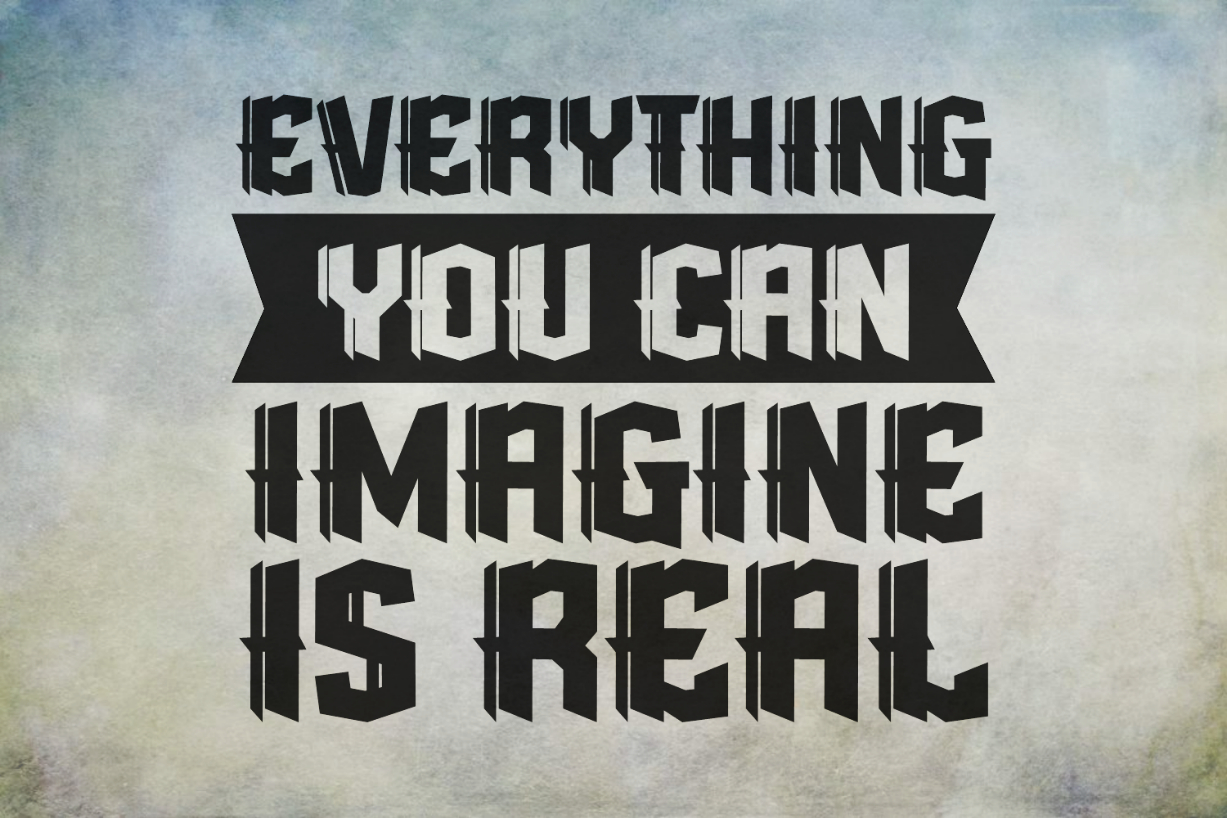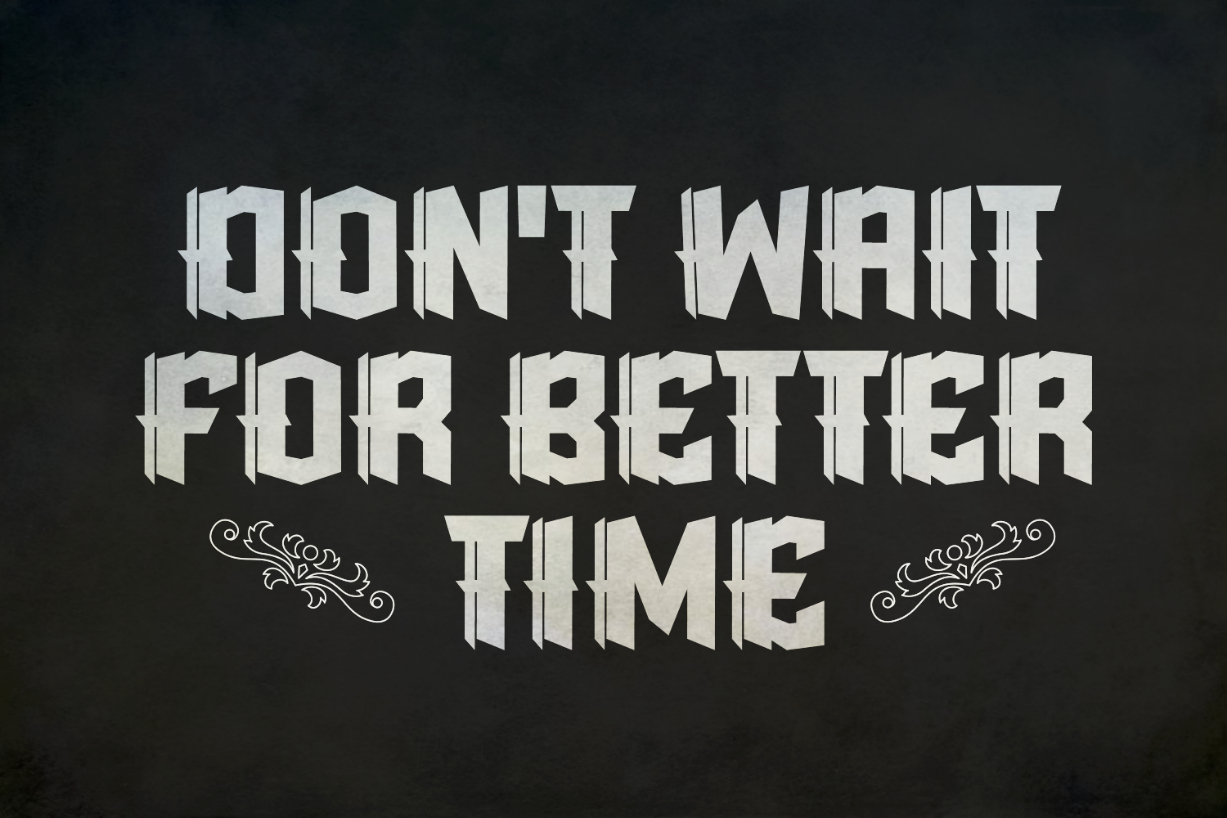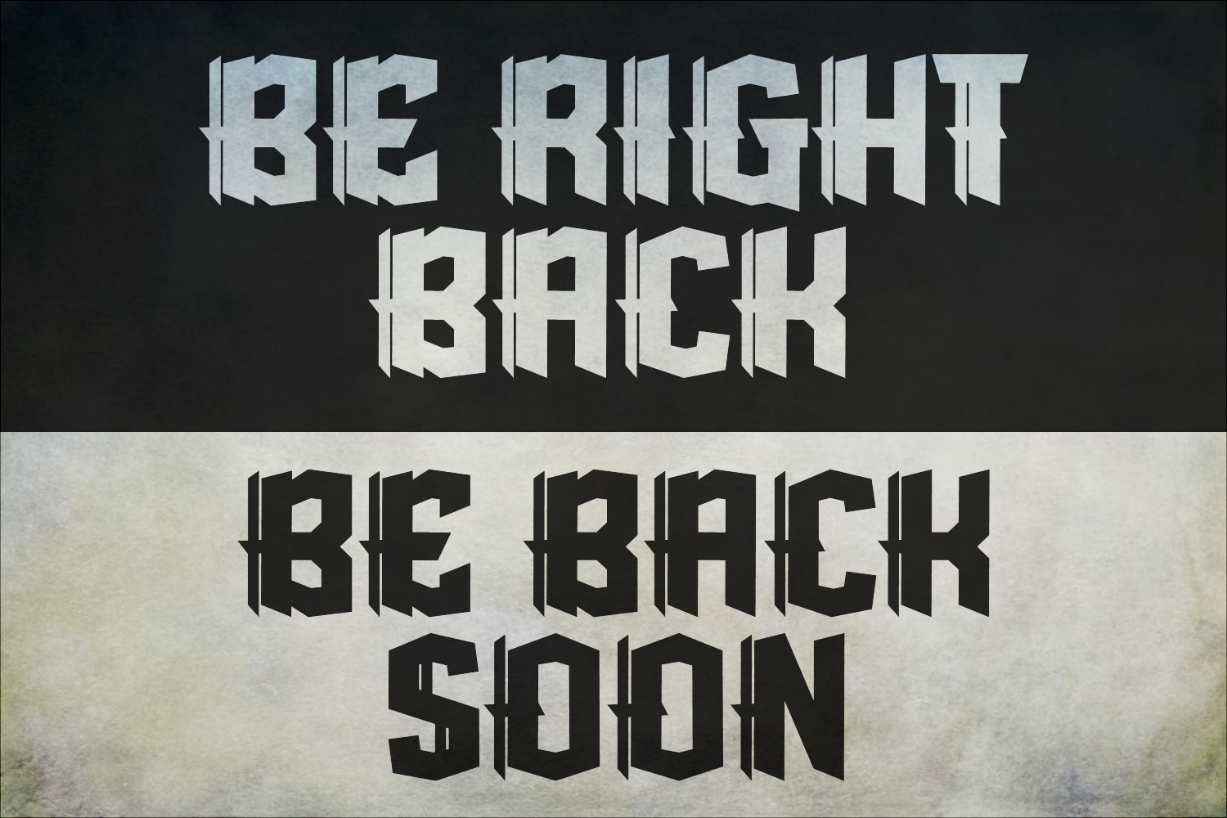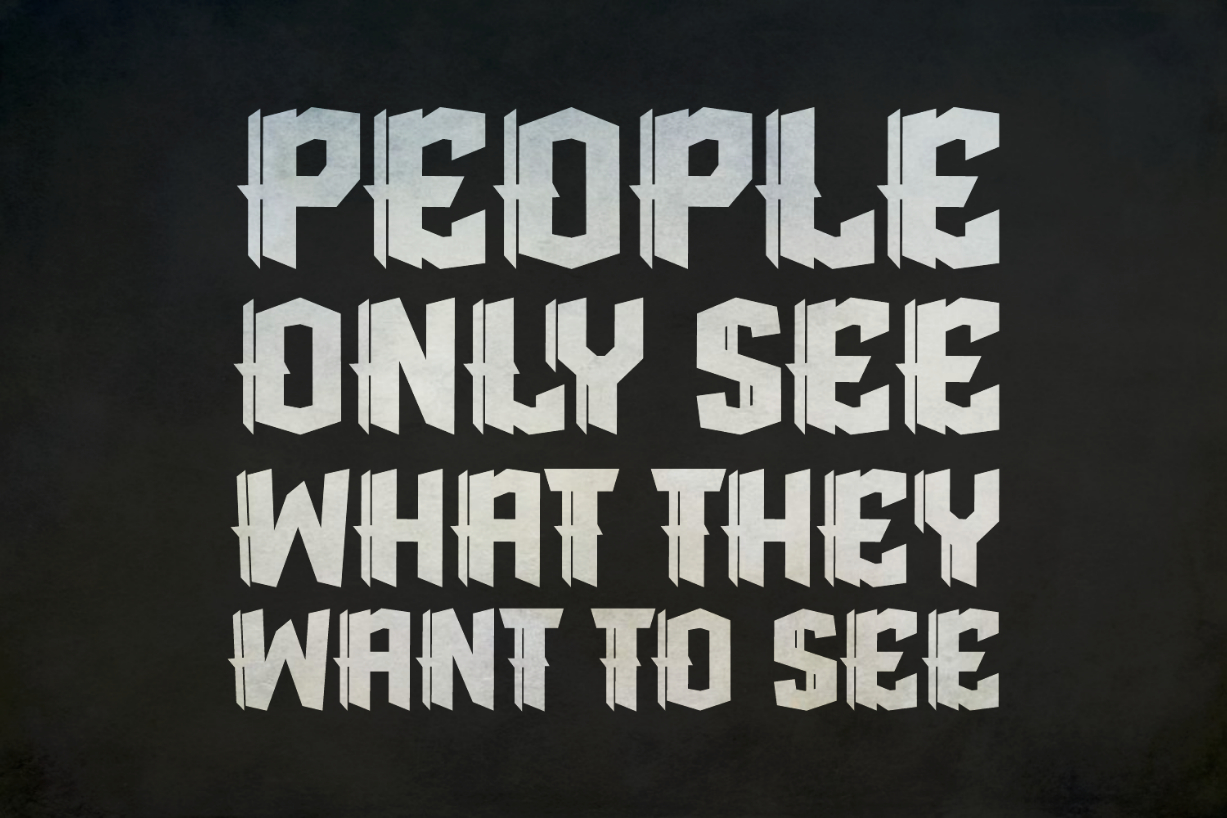
Sparta Jagoan Font
About Sparta Jagoan Font
Sparta Jagoan is a chunky and magnificent blackletter font. This skillfully designed set of characters is the perfect choice for projects that need bold and striking typography. Add it to your fonts library now, and use it to create memorable posters, advertisements, logos, t-shirts, and more.